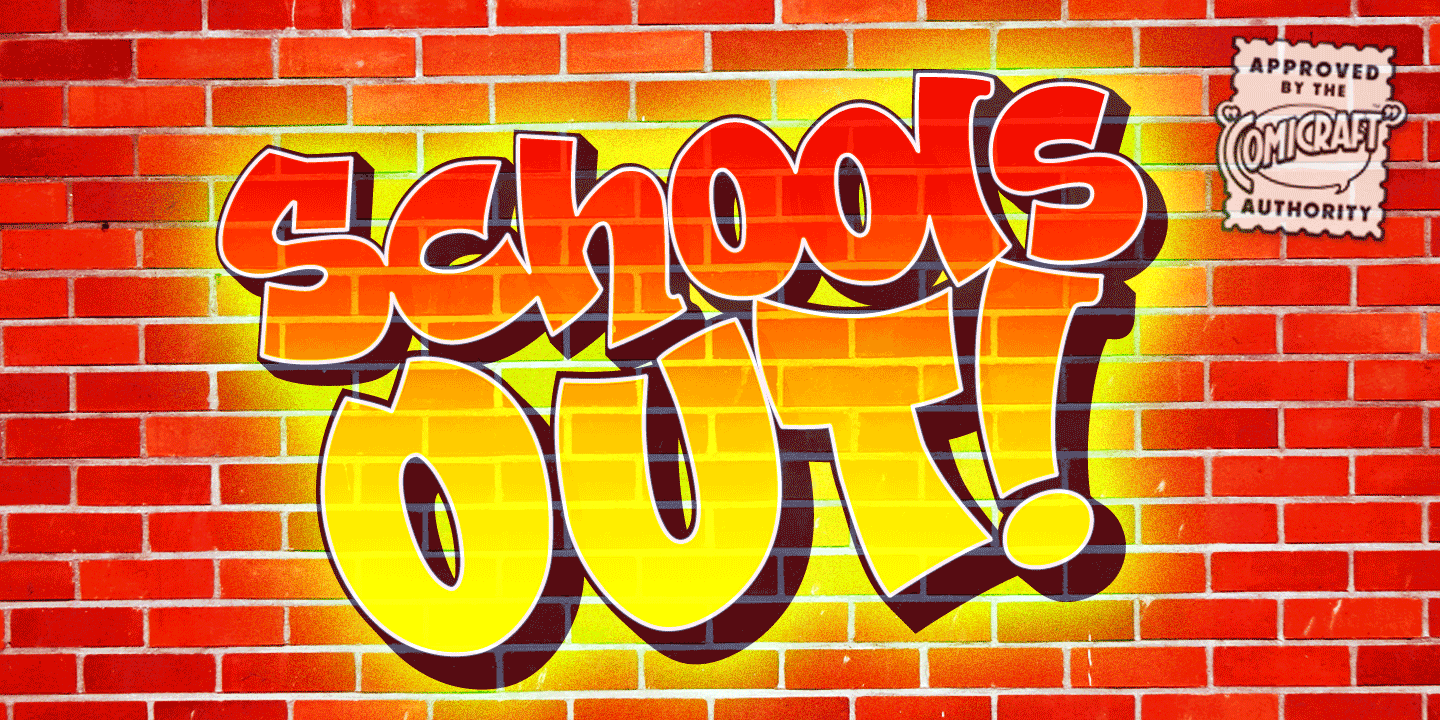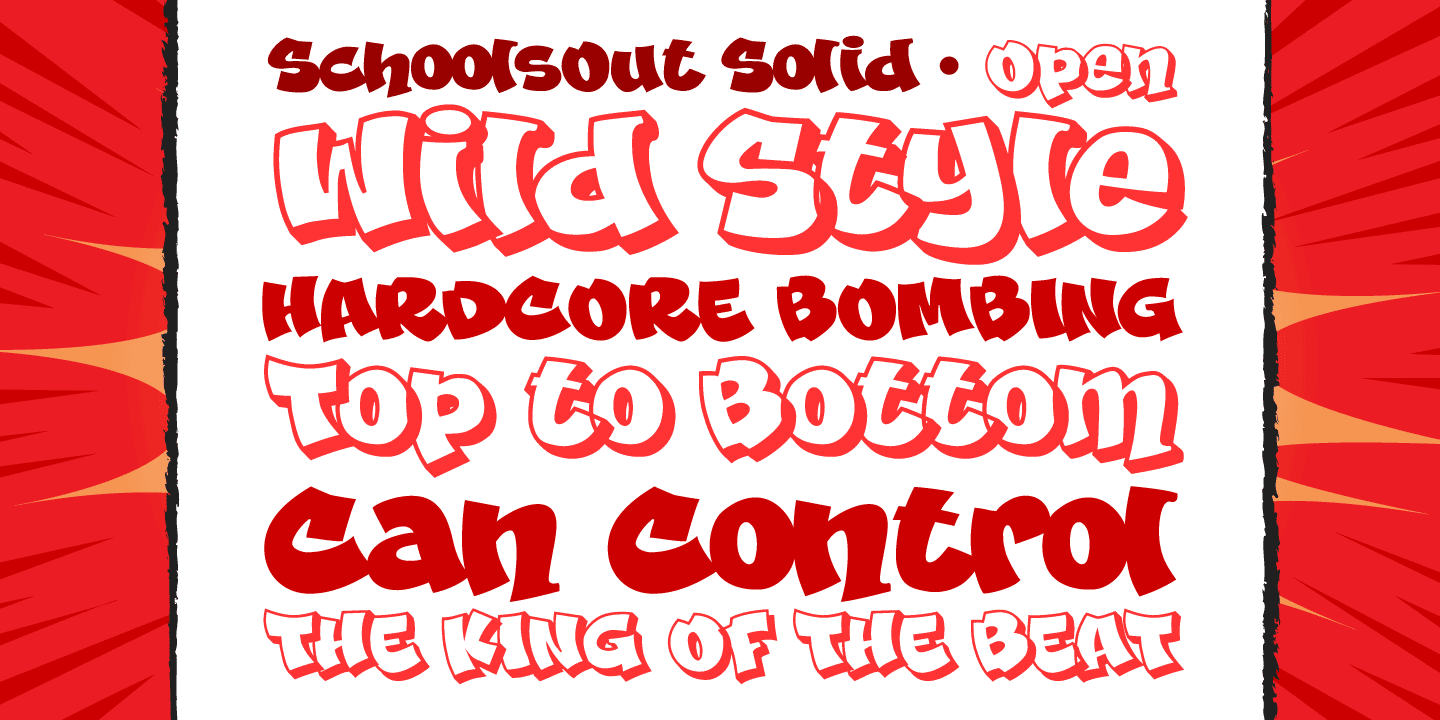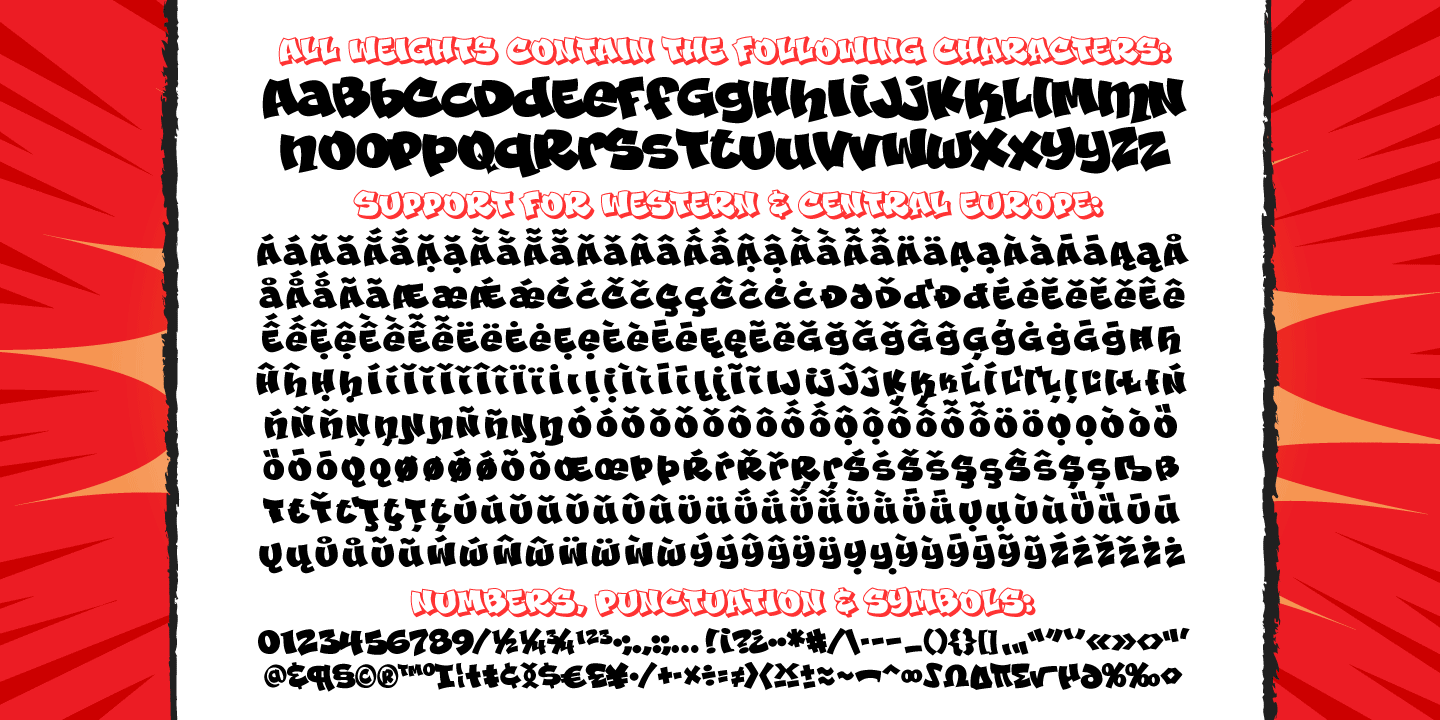
Schools Out
Font Family by Comicraft Fonts
Originally created for Sound Effects in Marvel's GHOST RIDER 2099, our spraycan stylish SCHOOLSOUT font has just the right Scrawl of the Wild for graph-iti enthusiasts everywhere -- and they wash right off with just a little splash of 'delete'. Spray it, don't Say it!